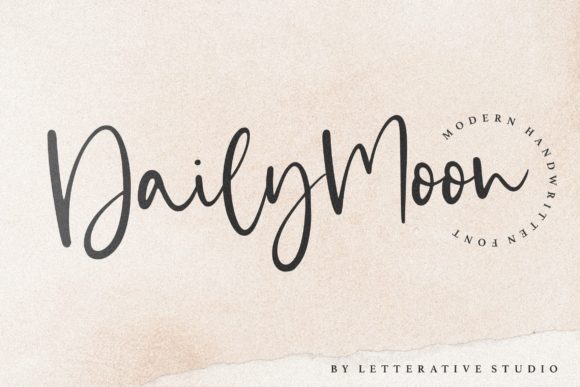
Discover the Dreamy Elegance of Daily Moon Font
As I sat down to redesign the header for my lifestyle blog, I knew I needed a font that would capture the essence of my content—something elegant, yet approachable. After hours of searching, I stumbled upon Daily Moon, and it was love at first sight.
A Visual Character That Captivates
Daily Moon is a premium script font that exudes a dreamy, handwritten quality. Its flowing, rhythmic strokes and delicate curves make it perfect for adding a touch of sophistication to any design. The font's personality is both whimsical and refined, making it an ideal choice for projects that need a balance of charm and elegance.
Making an Impact in Editorial Design
In my redesign, I used Daily Moon for the blog header, and it instantly transformed the look and feel of the site. The font's natural rhythm and fluidity made the header stand out, drawing the reader's eye and setting the tone for the entire blog. It also worked beautifully for article titles, creating a strong visual hierarchy and enhancing the overall editorial mood.
Enhancing Readability and Engagement
While Daily Moon is a display font, it maintains a level of readability that makes it suitable for more than just decorative accents. For instance, I found it perfect for pull quotes within my articles. The font's graceful lines and subtle flair added a touch of elegance to the highlighted text, making it more engaging and memorable for readers.
Practical Considerations for Content Layouts
When using Daily Moon in longer texts or body copy, it's important to consider its expressiveness. This font is best suited for titles, subtitles, and short, impactful statements. For body text, I recommend pairing it with a clean, readable serif or sans serif font. This combination not only enhances the visual hierarchy but also ensures that the content remains accessible and easy to read.
- Titles and Subtitles: Use Daily Moon to create a strong, visually appealing headline that captures attention.
- Pull Quotes and Section Headings: Add a touch of elegance to your content with Daily Moon for key quotes and section breaks.
- Cover Text and Decorative Accents: Perfect for adding a personal, handcrafted feel to book covers, magazine spreads, and other creative projects.
Real-World Applications and Versatility
Beyond my blog, Daily Moon has proven to be a versatile addition to my design toolkit. For a recent recipe ebook, I used it for the cover and chapter openers, giving the publication a warm, inviting feel. In a coaching workbook, the font added a touch of inspiration to motivational quotes and section headings, making the material more engaging for participants.
Readability Across Formats
One of the strengths of Daily Moon is its adaptability across various formats. Whether you're designing for web, print, or digital publications, this font retains its charm and legibility. However, for screen reading and mobile layouts, it's essential to use it judiciously. Larger sizes and clear backgrounds help maintain readability, while smaller sizes or dense paragraphs may become challenging to read.
Font Pairing and Design Consistency
To create a cohesive and professional look, I often pair Daily Moon with a classic serif font like Garamond or a modern sans serif like Montserrat. This combination provides a balanced and harmonious design, ensuring that the overall aesthetic is both visually appealing and functional.
Final Checks Before Publishing
In conclusion, Daily Moon is a standout choice for anyone looking to add a touch of elegance and personality to their editorial designs. Its versatility, readability, and unique character make it a valuable asset for bloggers, publishers, and content creators alike. Give it a try and see how it can transform your next project.